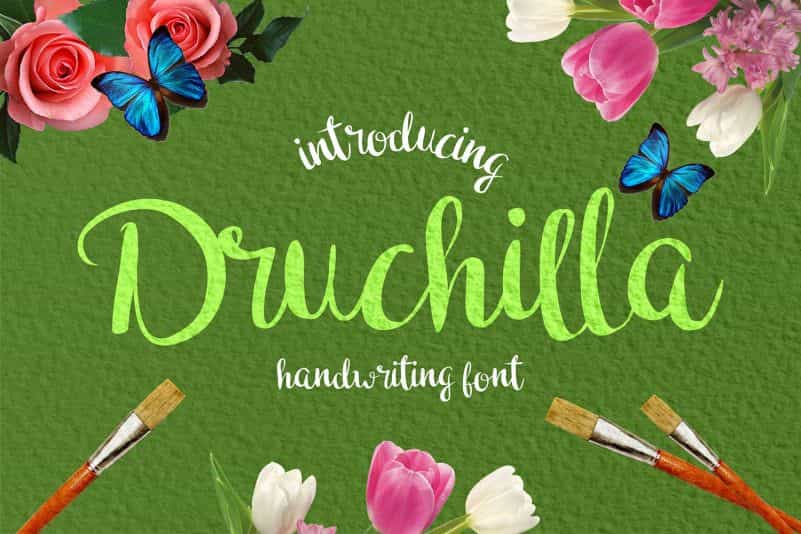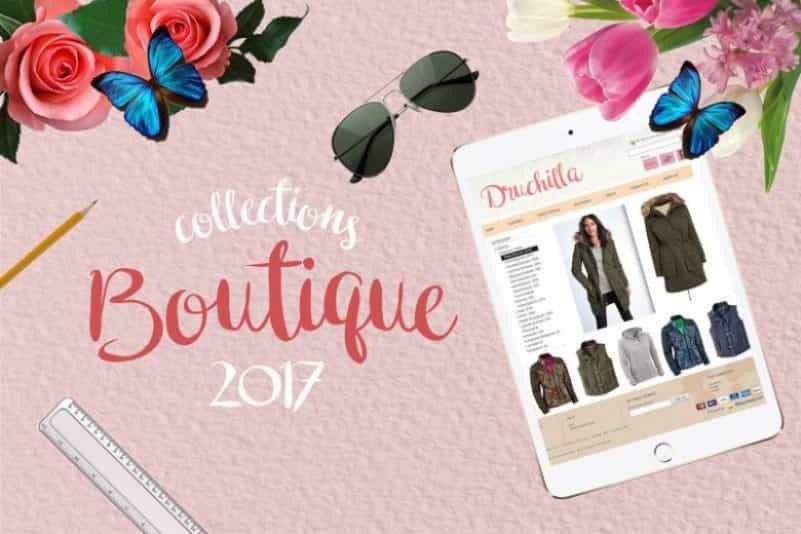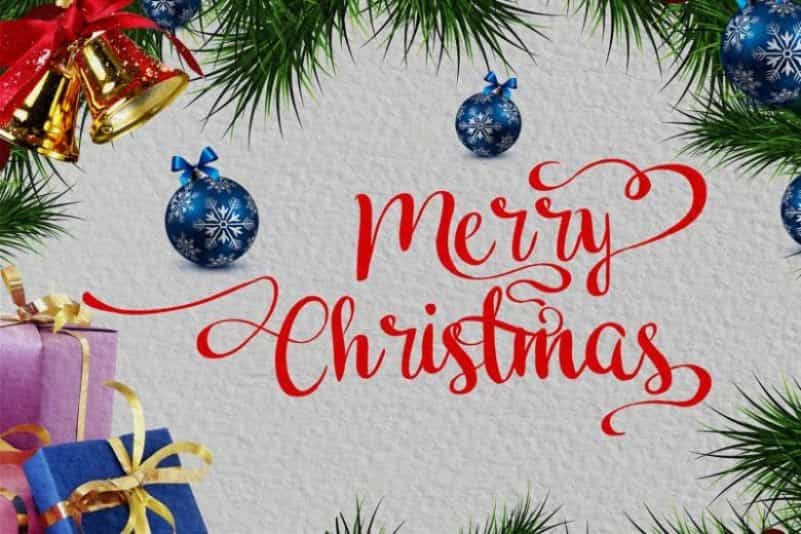
Please meet Drichilla Font. Cute, tender, flirty and a tad eccentric. Let’s face it. When is real life Romance Perfect, anyways? Drichilla is a darling cursive script which emulates imperfect hand-lettering.